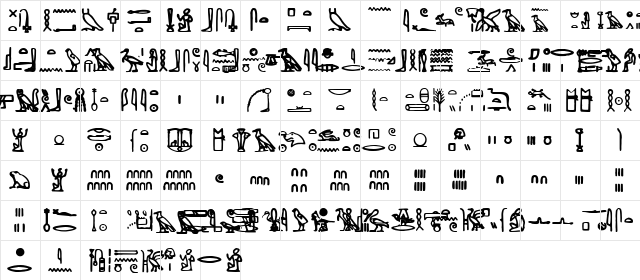
Hieroglyph Regular
Design Context for Hieroglyph Typeface
Hieroglyph takes a measured approach to typography — its balanced proportions and neutral character make it a reliable workhorse for both digital and print work.